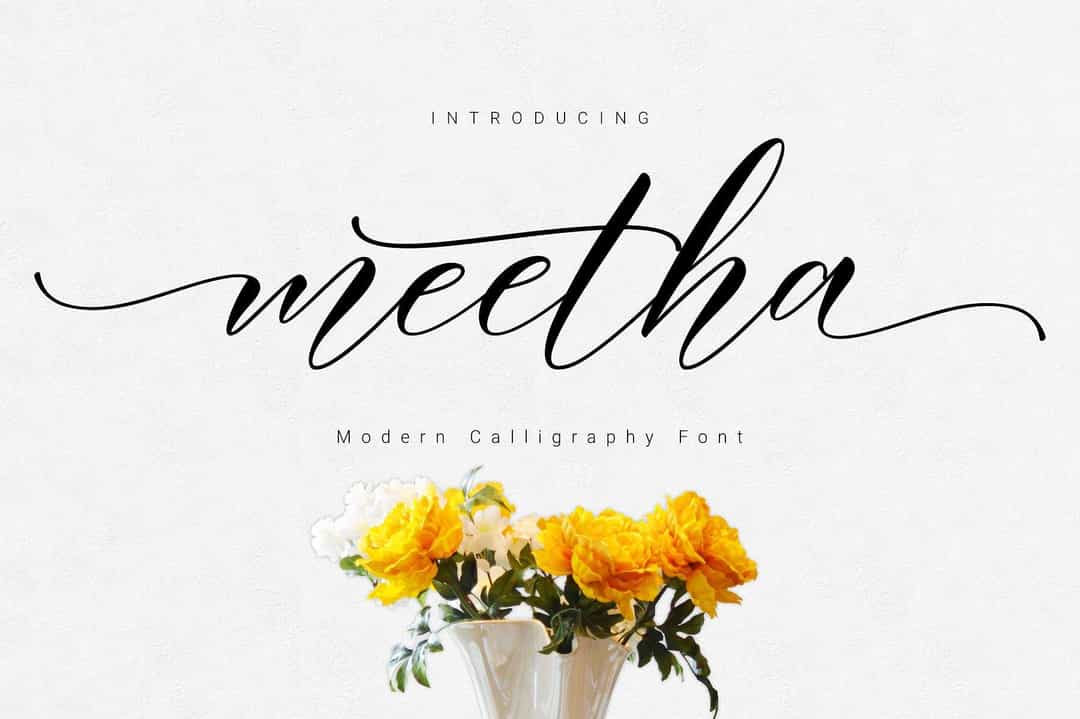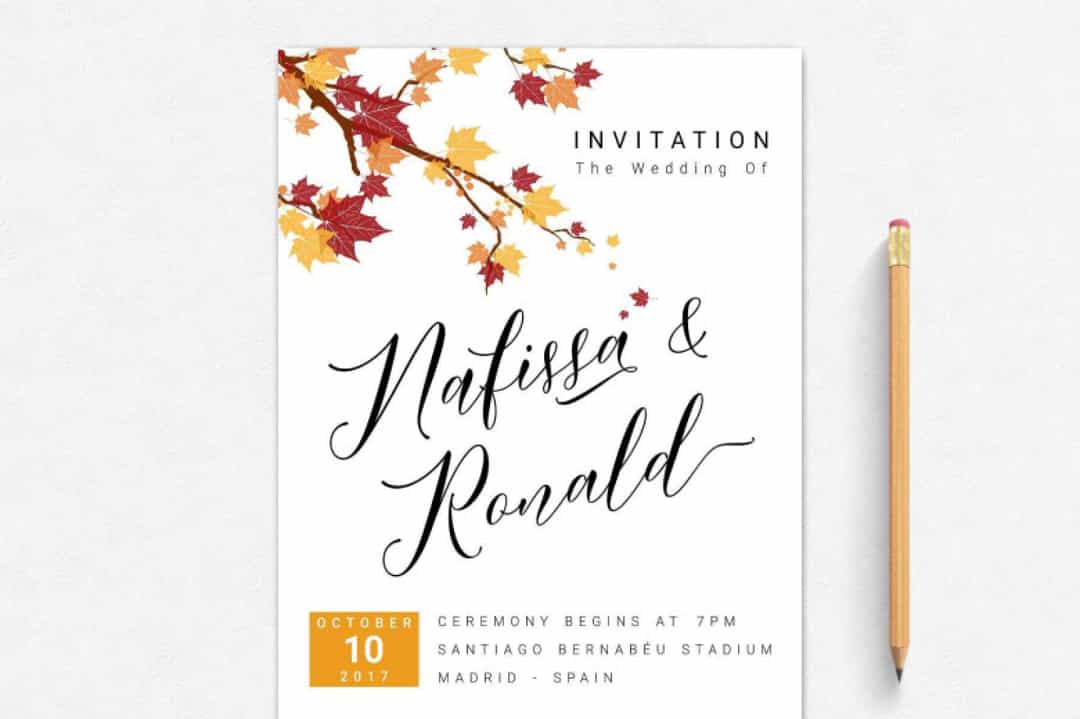
Hi Designer, Again in front of you with nice Script Fonts to add in your collection. . ! Meetha Script is the new style of types of font called calligraphy script font. It’s a very bright and elegant typeface of the script variety with certain italic features. It is sweet and simple and stylish, but made gently and danced to give the character of modern writing too firm.